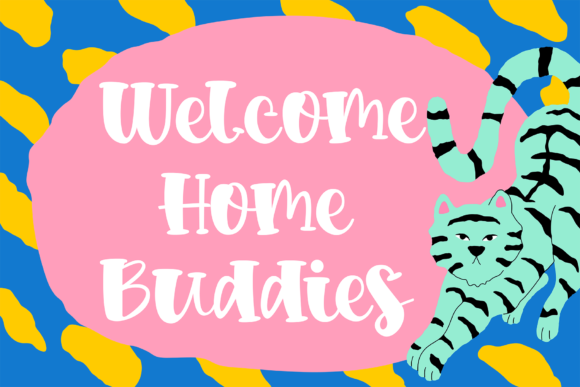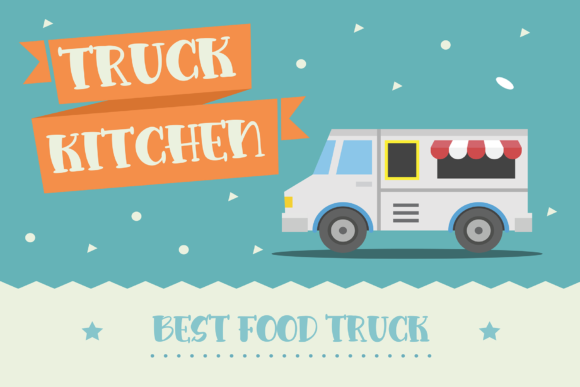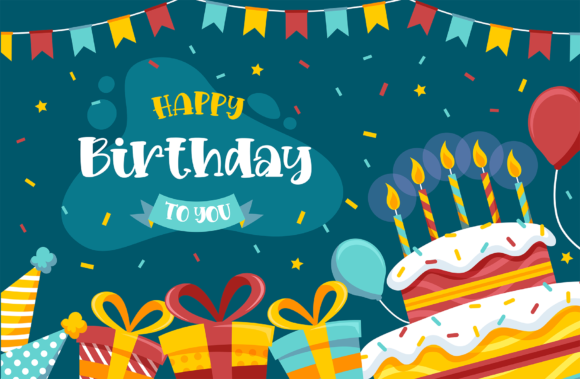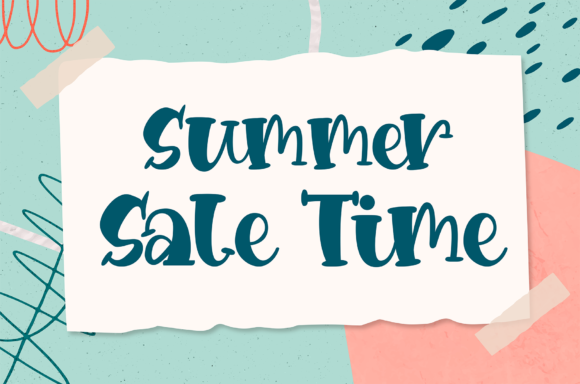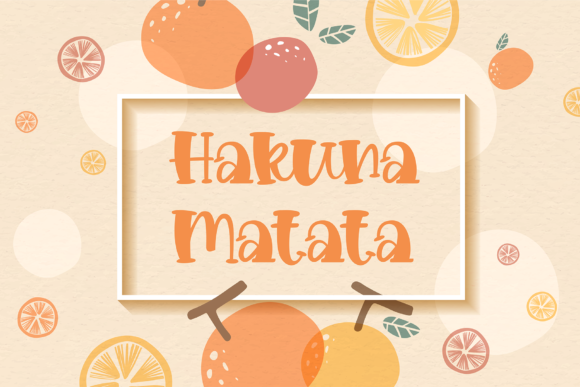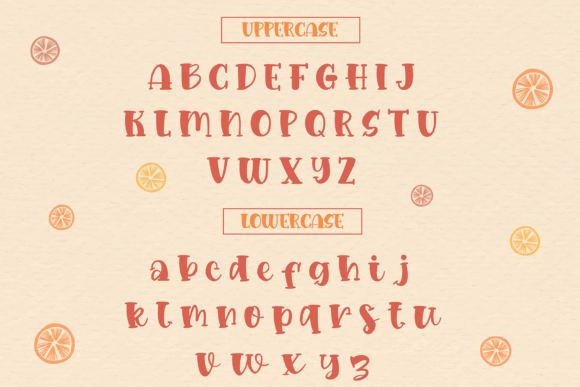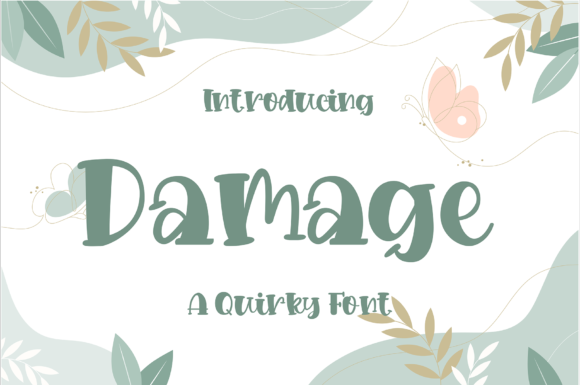
Introducing Damage Font: Elevate Your Designs with a Cool, Quirky, and Chic Display Font
In the world of typography, fonts play a crucial role in conveying the tone and personality of a design. Whether you’re working on a branding project, a website, or a craft, the right font can make all the difference. If you’re looking for a font that can add a touch of coolness, quirkiness, and chicness to your creations, look no further than Damage Font. In this article, we’ll explore the features and benefits of Damage Font, and why it’s an incredibly valuable asset to your font library.
What is Damage Font?
Damage Font is a display font that boasts a unique and eye-catching design. Its cool, quirky, and chic aesthetic makes it perfect for a wide range of projects, from bold headlines to creative crafts. The font’s distinctive style is sure to grab attention and leave a lasting impression on your audience.
Key Features of Damage Font
- Unique Design: Damage Font features a one-of-a-kind design that’s sure to stand out in any project.
- Versatility: This font is incredibly versatile and can be used for a wide range of projects, from digital designs to print materials.
- Easy to Read: Despite its quirky design, Damage Font is easy to read, making it perfect for headlines, titles, and other display text.
- High-Quality: Damage Font is a high-quality font that’s designed to deliver exceptional results in any project.
Benefits of Using Damage Font
So, why should you choose Damage Font for your next project? Here are just a few benefits of using this amazing font:
- Adds Personality: Damage Font adds a touch of personality to your designs, helping you to stand out from the crowd.
- Enhances Creativity: The font’s quirky design can help to inspire creativity and add a unique touch to your projects.
- Perfect for Branding: Damage Font is perfect for branding projects, as it can help to create a memorable and recognizable identity for your brand.
- Easy to Pair: This font is easy to pair with other fonts, making it simple to create a cohesive and harmonious design.
Who Can Benefit from Damage Font?
Damage Font is an incredibly versatile font that can be used by a wide range of designers and crafters, including:
- Graphic Designers: Graphic designers can use Damage Font to add a touch of personality to their designs, from logos to brochures.
- Web Designers: Web designers can use Damage Font to create bold and eye-catching headlines, titles, and other display text.
- Crafters: Crafters can use Damage Font to add a unique touch to their projects, from handmade cards to DIY crafts.
- Branding Experts: Branding experts can use Damage Font to create a memorable and recognizable identity for their clients.
How to Use Damage Font
Using Damage Font is easy! Here are a few tips to get you started:
- Use it as a Headline Font: Damage Font is perfect for headlines, titles, and other display text.
- Pair it with Other Fonts: Experiment with pairing Damage Font with other fonts to create a unique and harmonious design.
- Use it for Branding: Use Damage Font to create a memorable and recognizable identity for your brand.
- Experiment with Colors: Don’t be afraid to experiment with different colors and textures to add depth and interest to your design.
In conclusion, Damage Font is an incredibly valuable asset to any designer’s font library. Its cool, quirky, and chic design makes it perfect for a wide range of projects, from bold headlines to creative crafts. With its unique design, versatility, and ease of use, Damage Font is sure to elevate any creation and help you to stand out from the crowd.